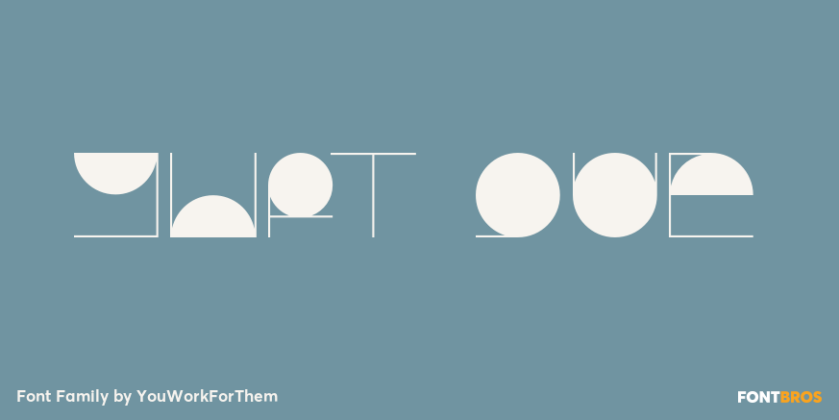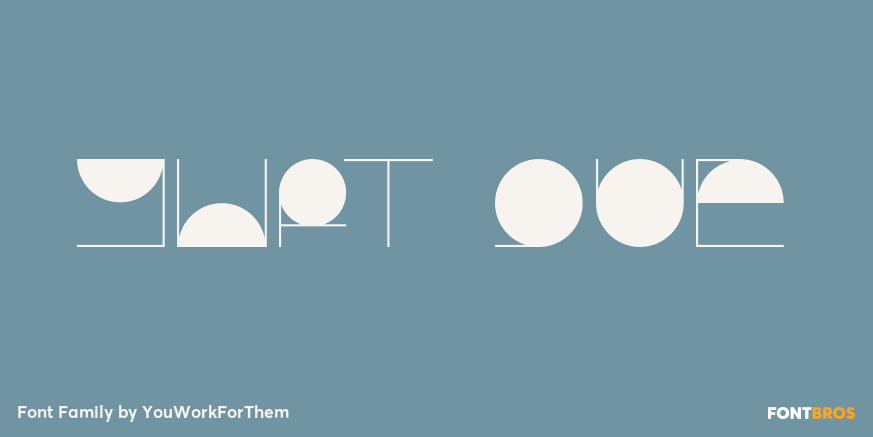
YWFT QUE
About YWFT QUE
It has been said that a strong typeface is made stronger when it is applied to a thoughtfully considered composition. Helvetica, perhaps the strongest of all typefaces, even starred in its own film. But to every thing, there is a season, and we here at…